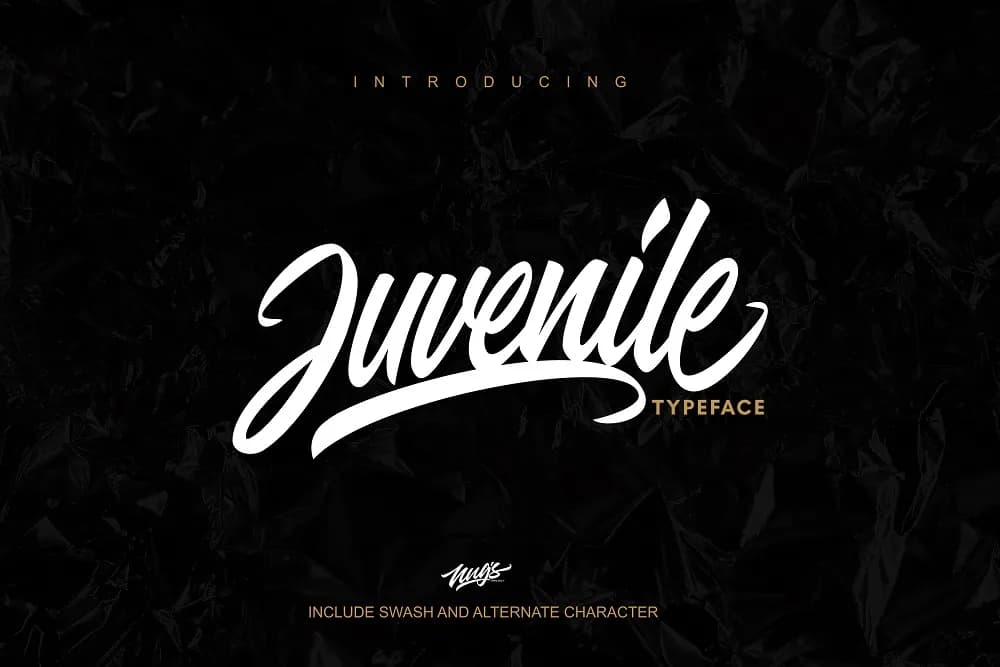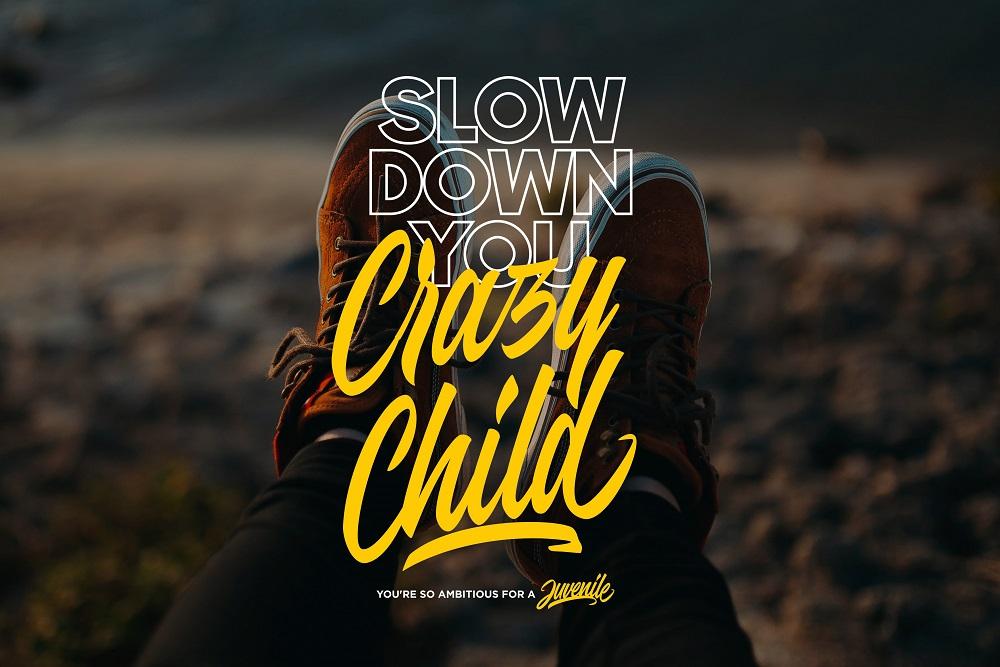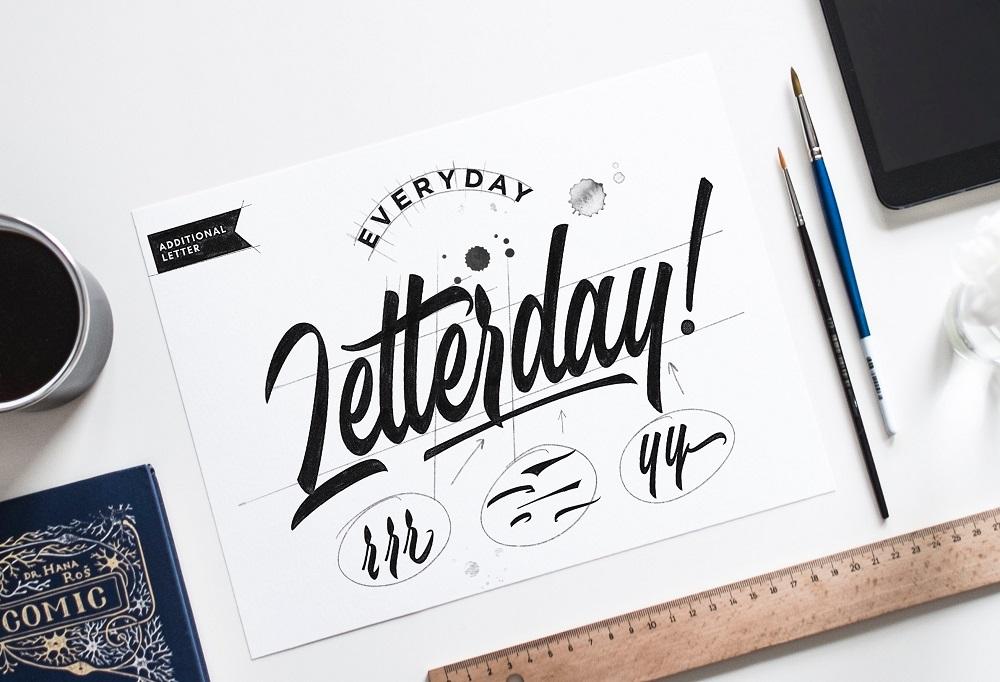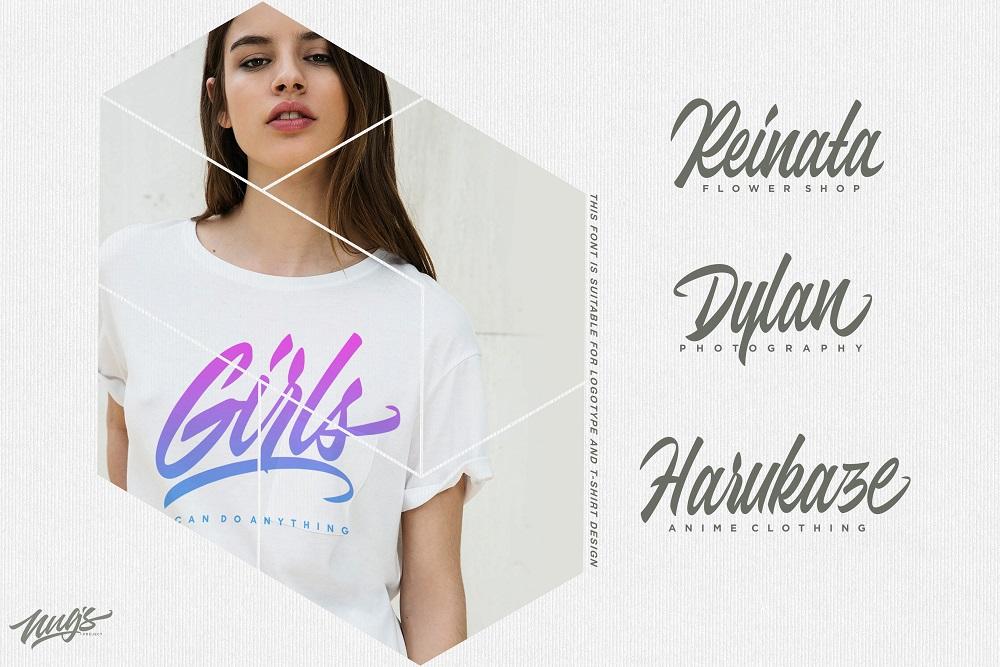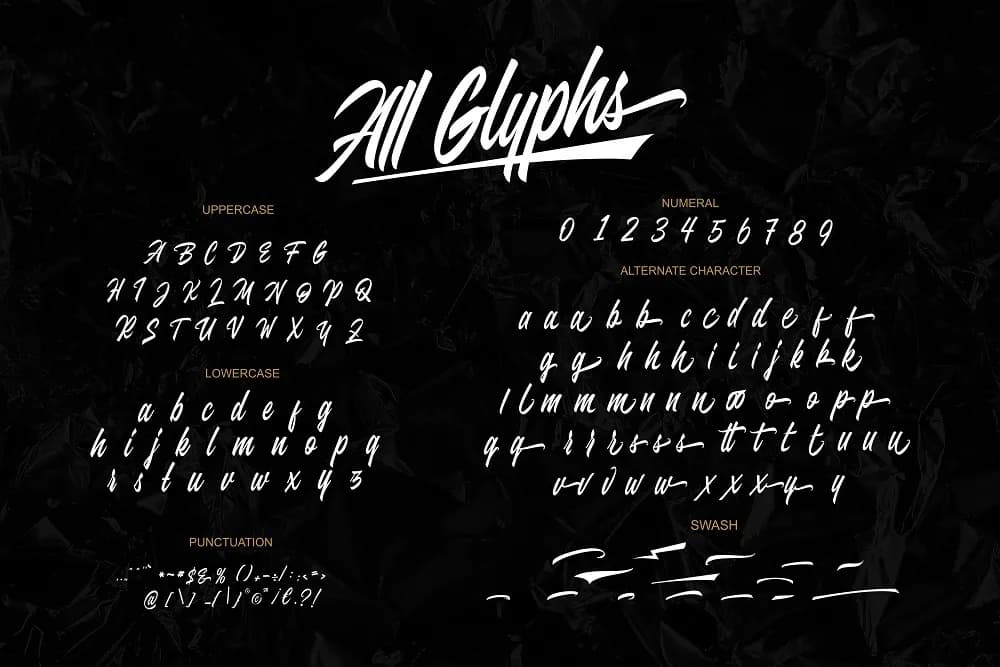
The Juvenile is a hand lettering typeface with a brush style. It’s ideal for logos, t-shirts, product packaging, headers, posters, greeting cards, and much more! Juvenile font includes a complete set of uppercase and lowercase letters, as well as multi-language support, numbers, punctuation, ligatures, alternatives. Product Content : Juvenile (OTF) Juvenile (TTF) Juvenile (Woff) UPDATE Juvenile Rough (OTF) Juvenile Rough (TTF) repair of several glyphs